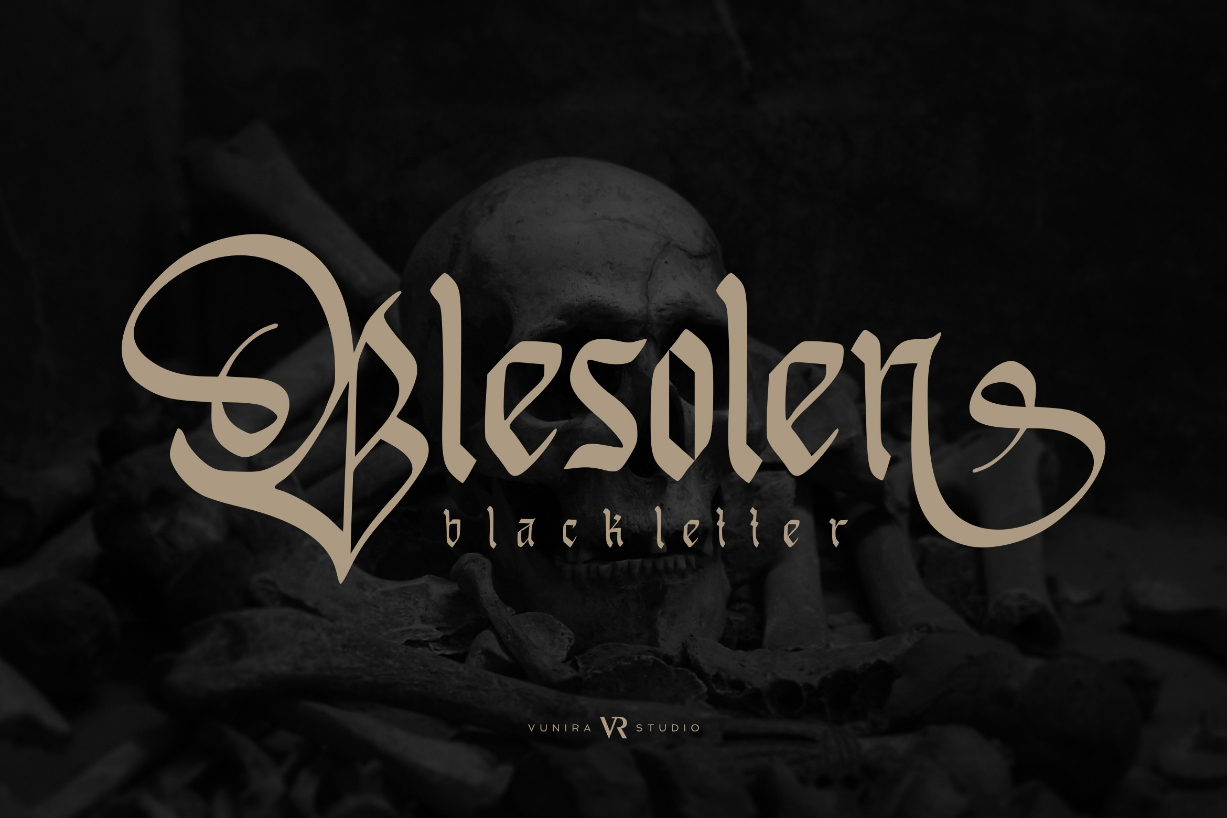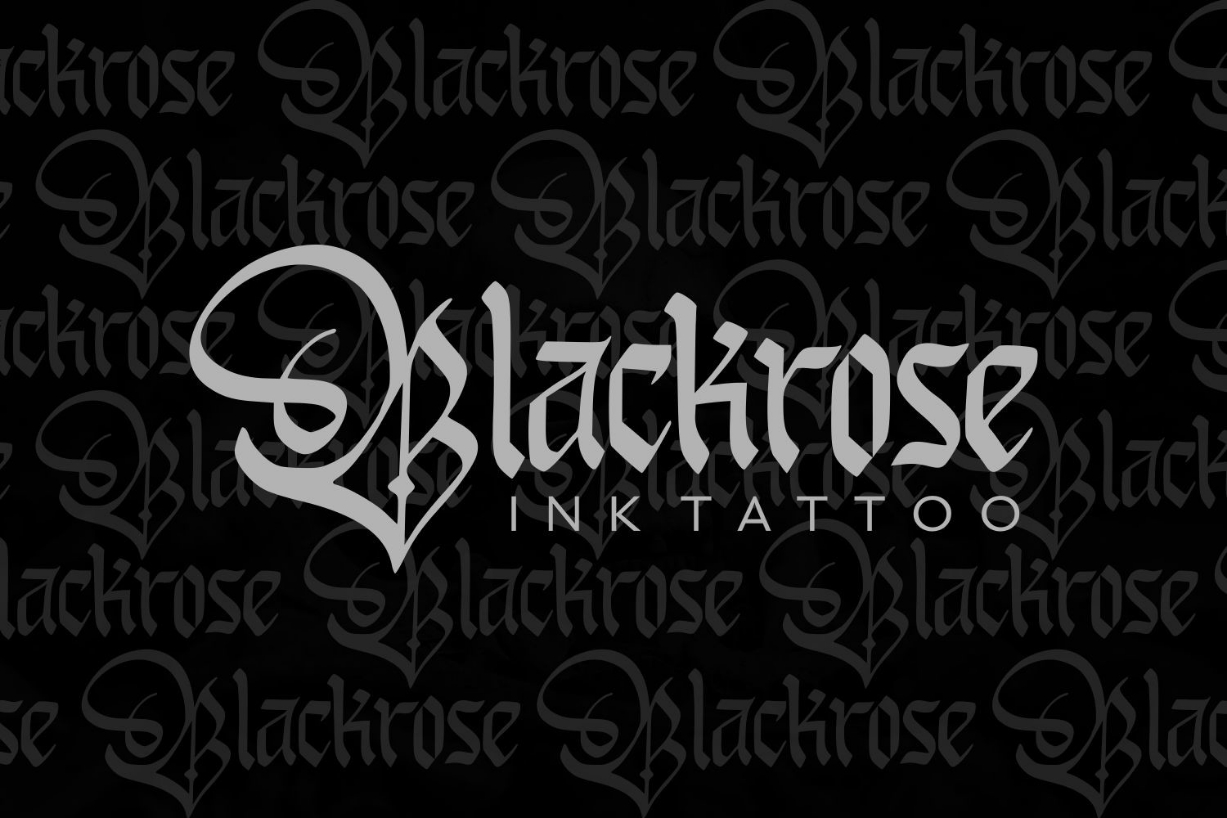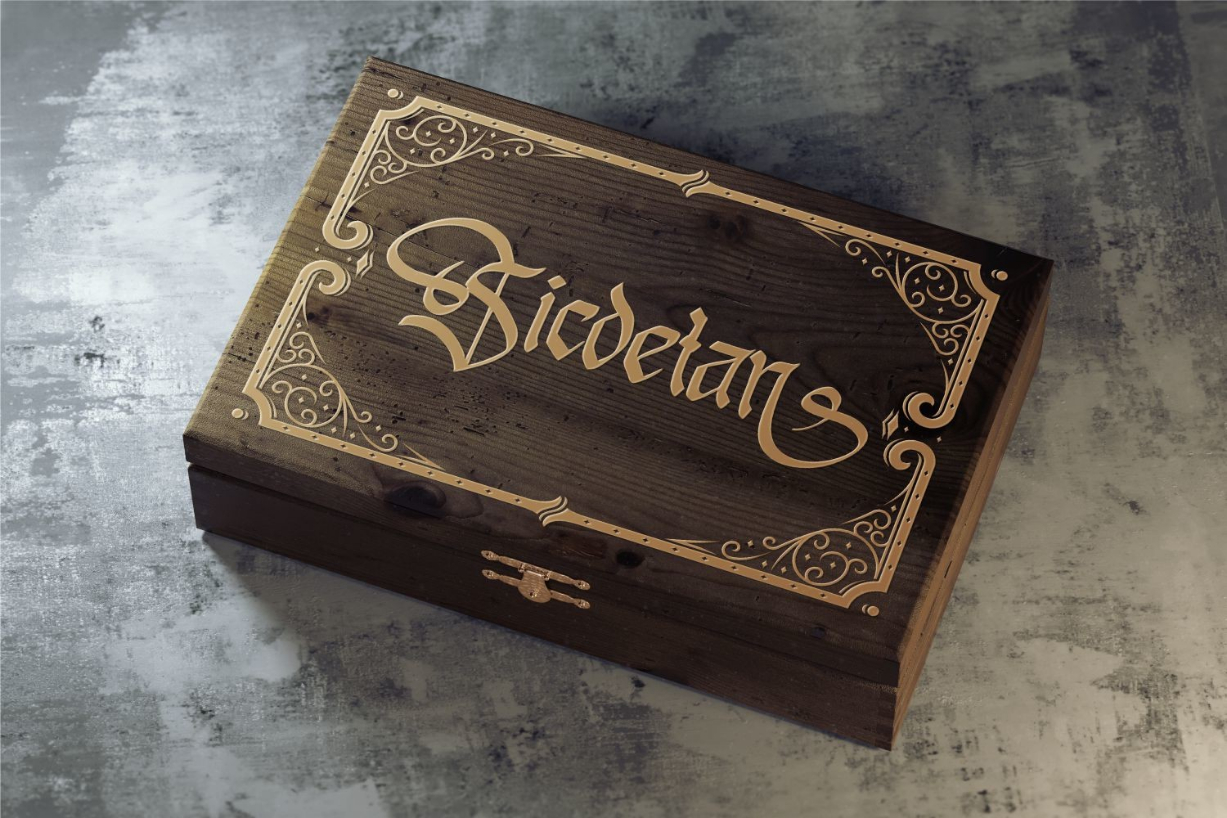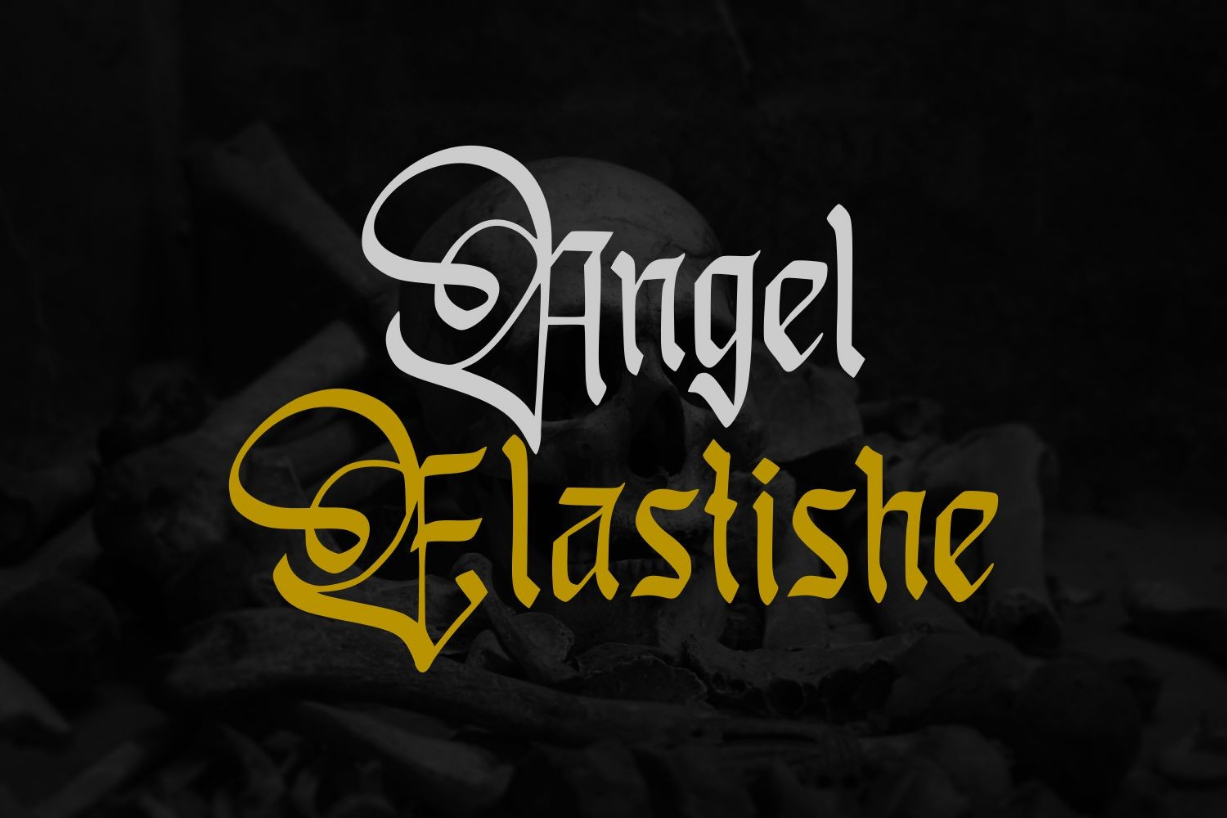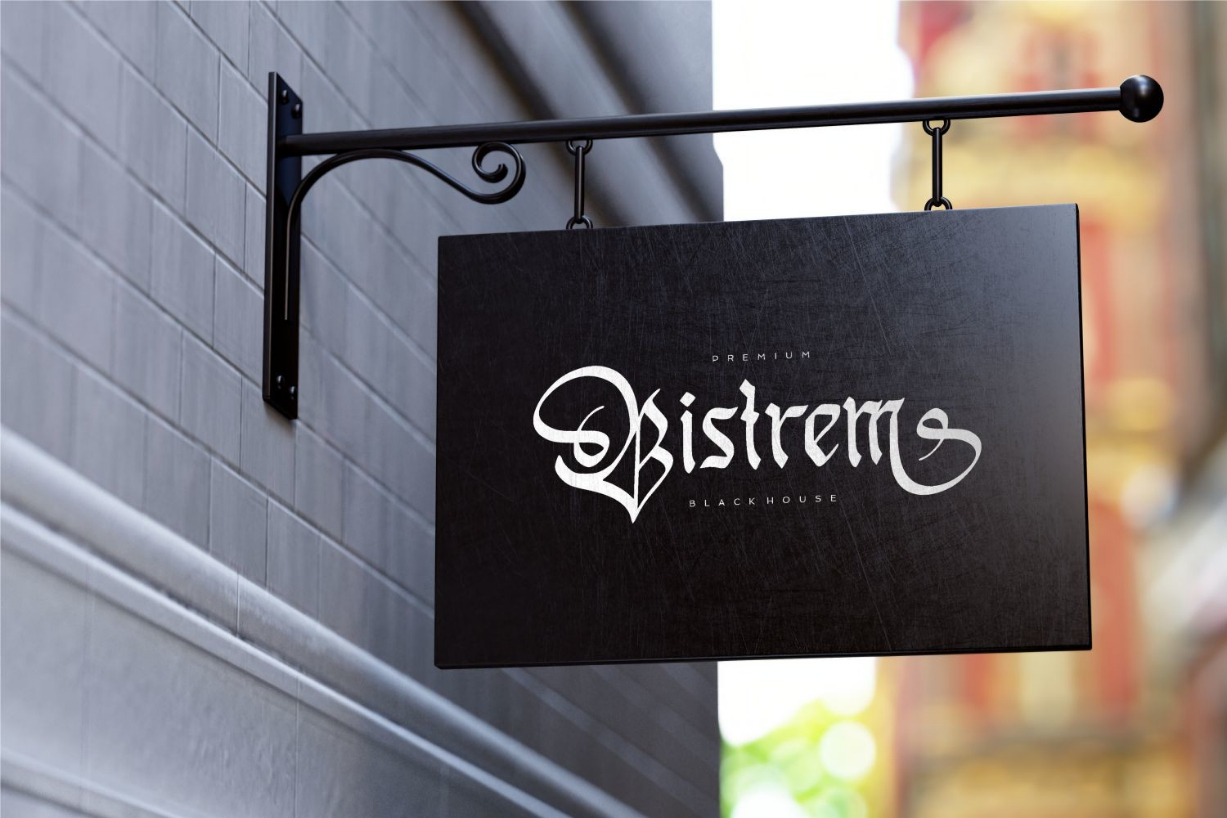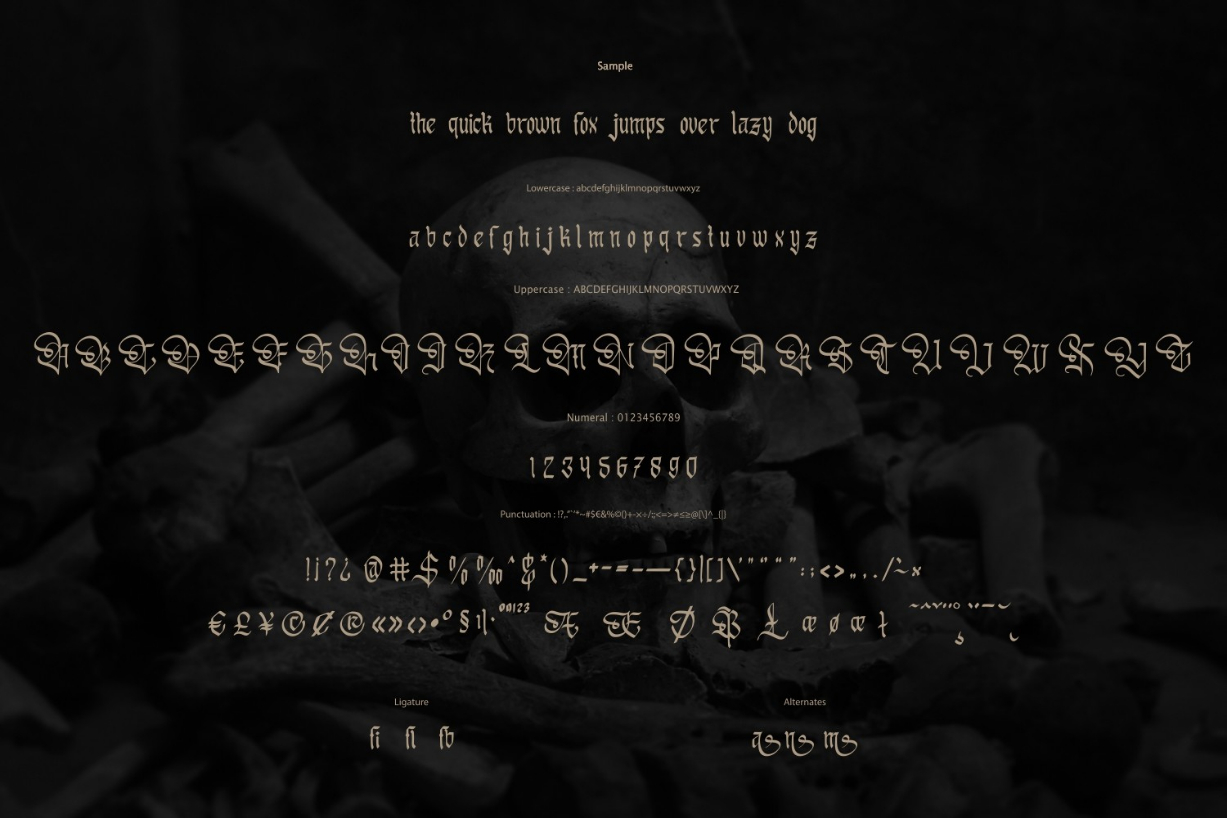
Blesolen Font
About Blesolen Font
Blesolen is a modern script blackletter font that combines traditional and contemporary design elements. Its bold letterforms and unique ligatures create a striking and edgy look that is perfect for branding, packaging, and editorial design. The script style adds a touch of elegance, making it a versatile font that can be used for a variety of projects.